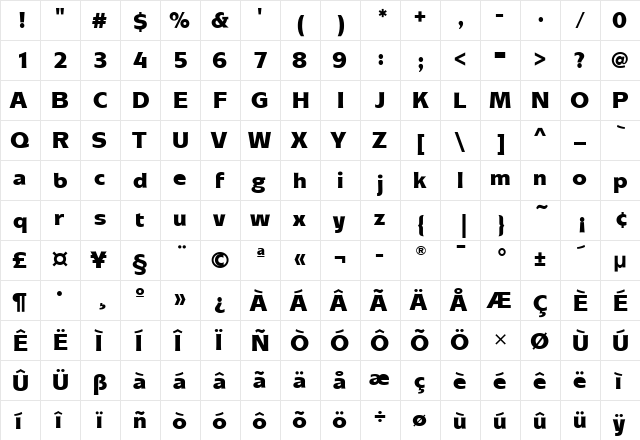
MixageMdITC Black
Design Context for MixageMdITC Typeface
MixageMdITC takes a measured approach to typography — its balanced proportions and neutral character make it a reliable workhorse for both digital and print work.